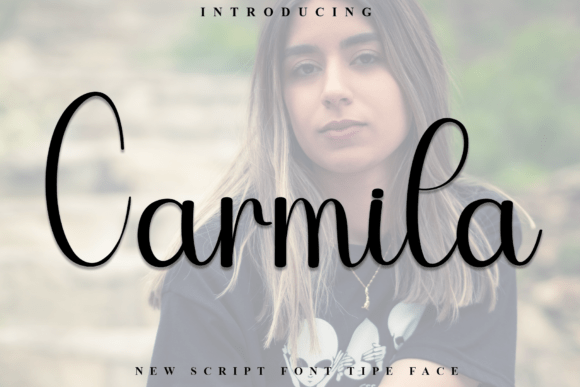
The Magic of Carmila Font: Elevate Your Holiday Designs
It’s that time of the year again – the season of joy, giving, and endless design projects. I still remember the year I was tasked with creating a festive holiday card for a client, only to find myself stuck in a font rut. I scoured the internet for the perfect typeface, but nothing seemed to capture the whimsy and cheer I was looking for. That was until I stumbled upon the Carmila Font ✨. With its decorative elements and whimsical flair, it instantly added a touch of enchantment to my designs.
An Honest Review of Carmila Font
- ✨ Festive and merry vibe that’s perfect for the holiday season
- ✅ Decorative elements and whimsical flair that add a touch of magic to designs
- 🎉 PUA encoded for easy access to amazing glyphs and ligatures
- 💻 Highly versatile and suitable for various design projects, from greeting cards to holiday-themed merchandise
While Carmila Font is a stunning typeface, there are a few minor quirks to be aware of ⚠️:
- 🤔 Some users may find the font’s decorative elements a bit over-the-top for certain design projects
- ⚠️ Limited use outside of holiday-themed designs, as the font’s festive vibe may not be suitable for other contexts
The Backstory of Carmila Font
Carmila Font was designed by a team of creatives who wanted to capture the magic and wonder of the holiday season. Inspired by vintage holiday cards and festive typography, they created a font that’s both nostalgic and modern. The result is a typeface that’s perfect for adding a touch of enchantment to your holiday designs.
Q: Is Carmila Font suitable for non-holiday designs?
While Carmila Font is designed specifically for holiday-themed designs, it can be used for other projects as well. However, keep in mind that the font’s festive vibe may not be suitable for all design contexts.